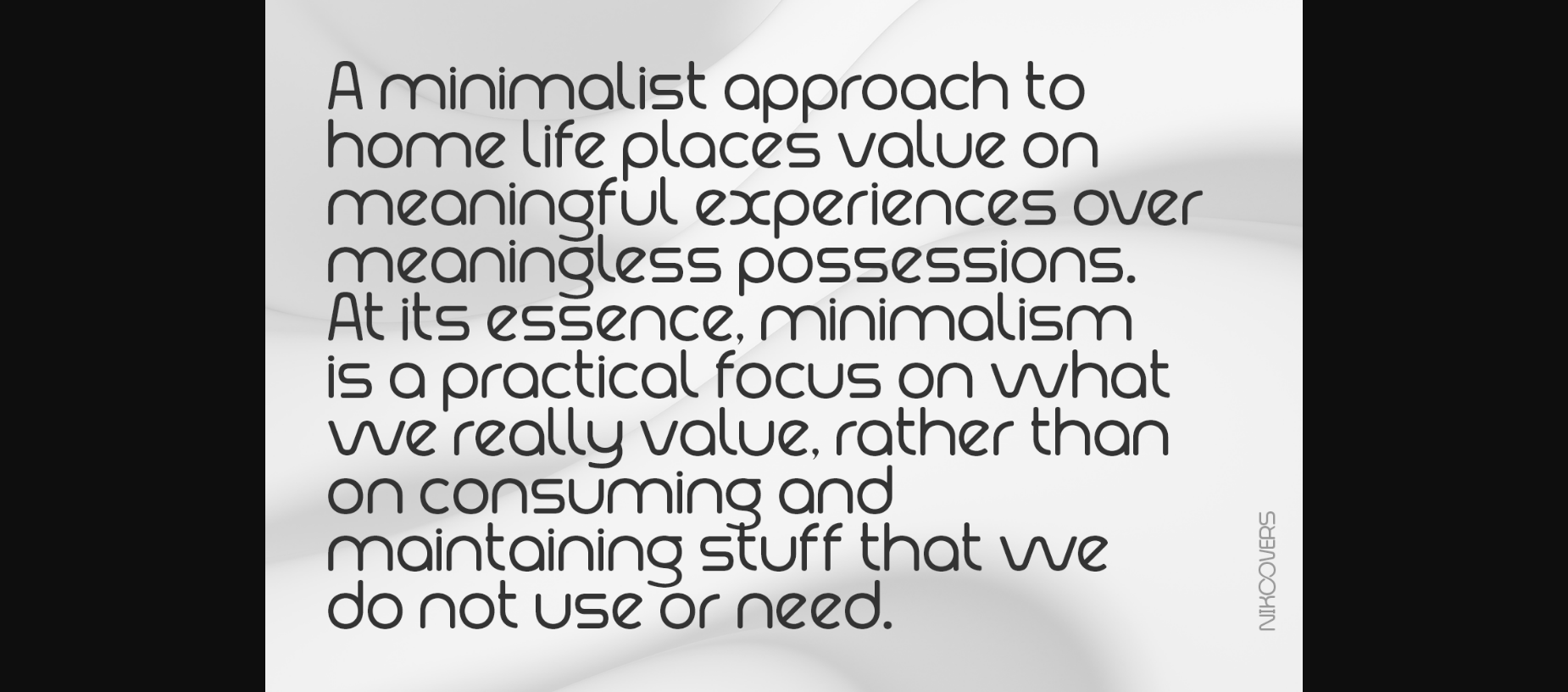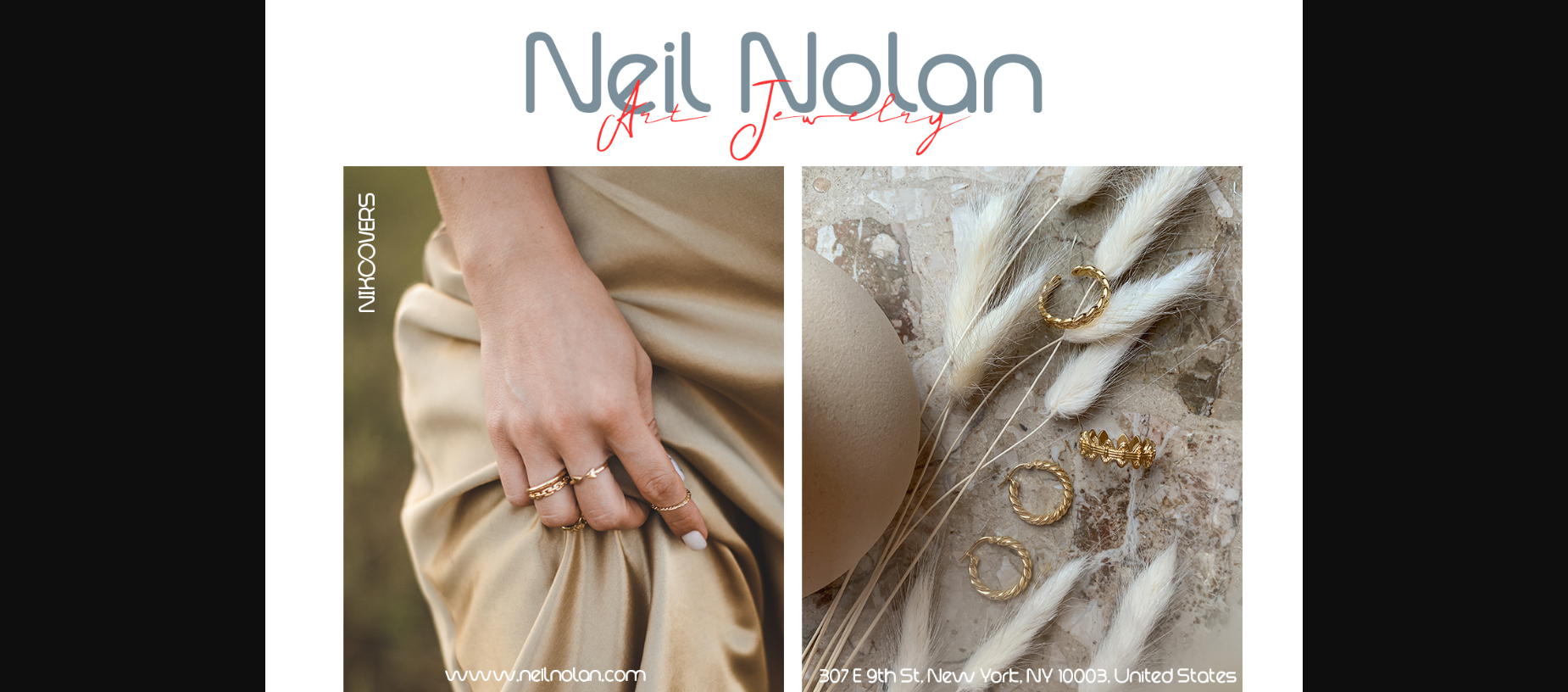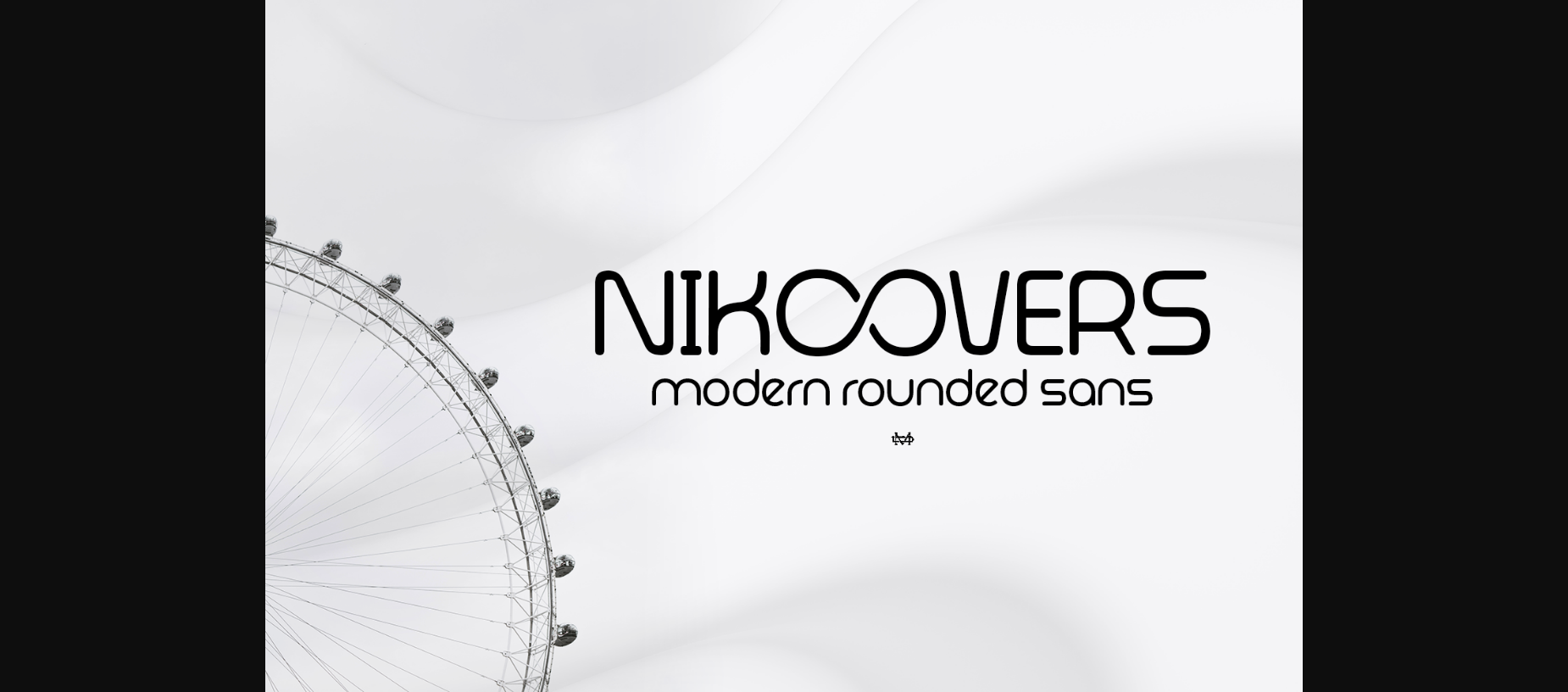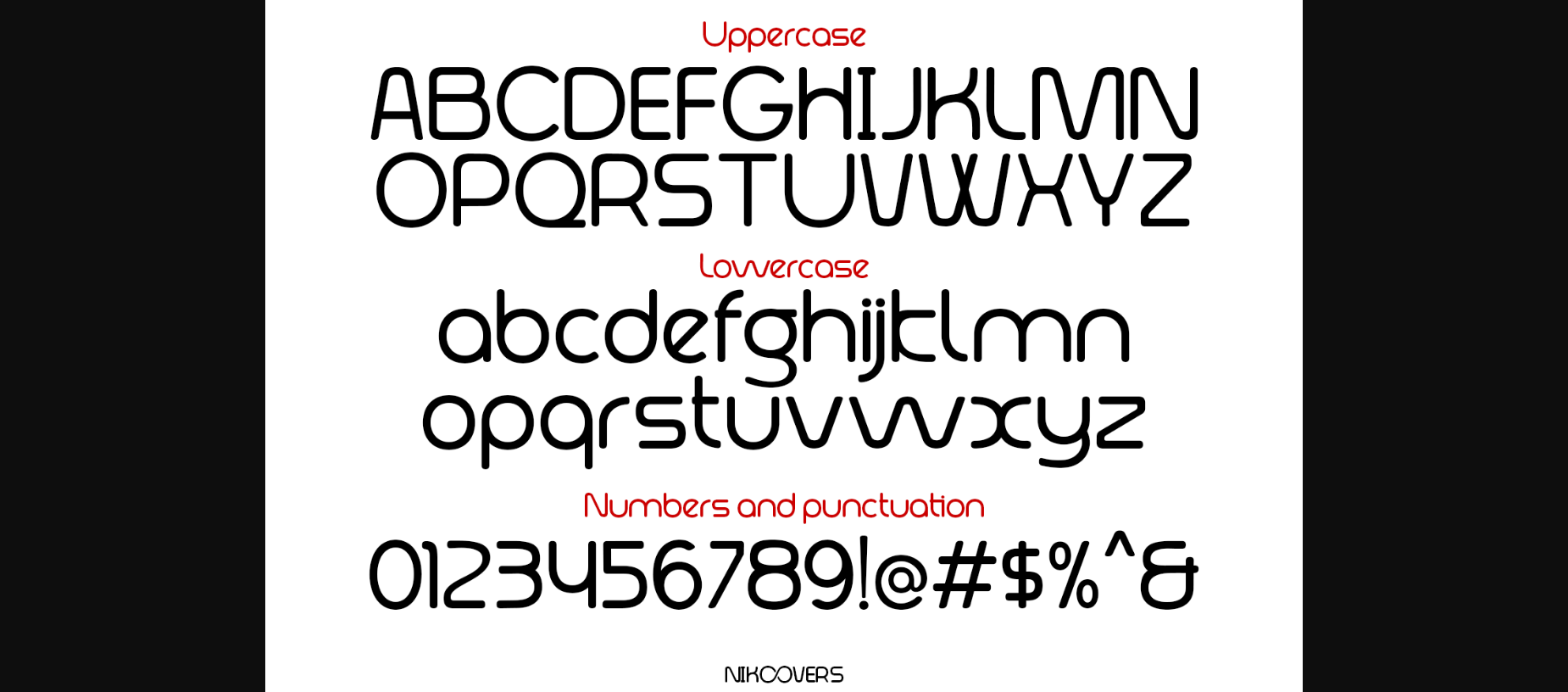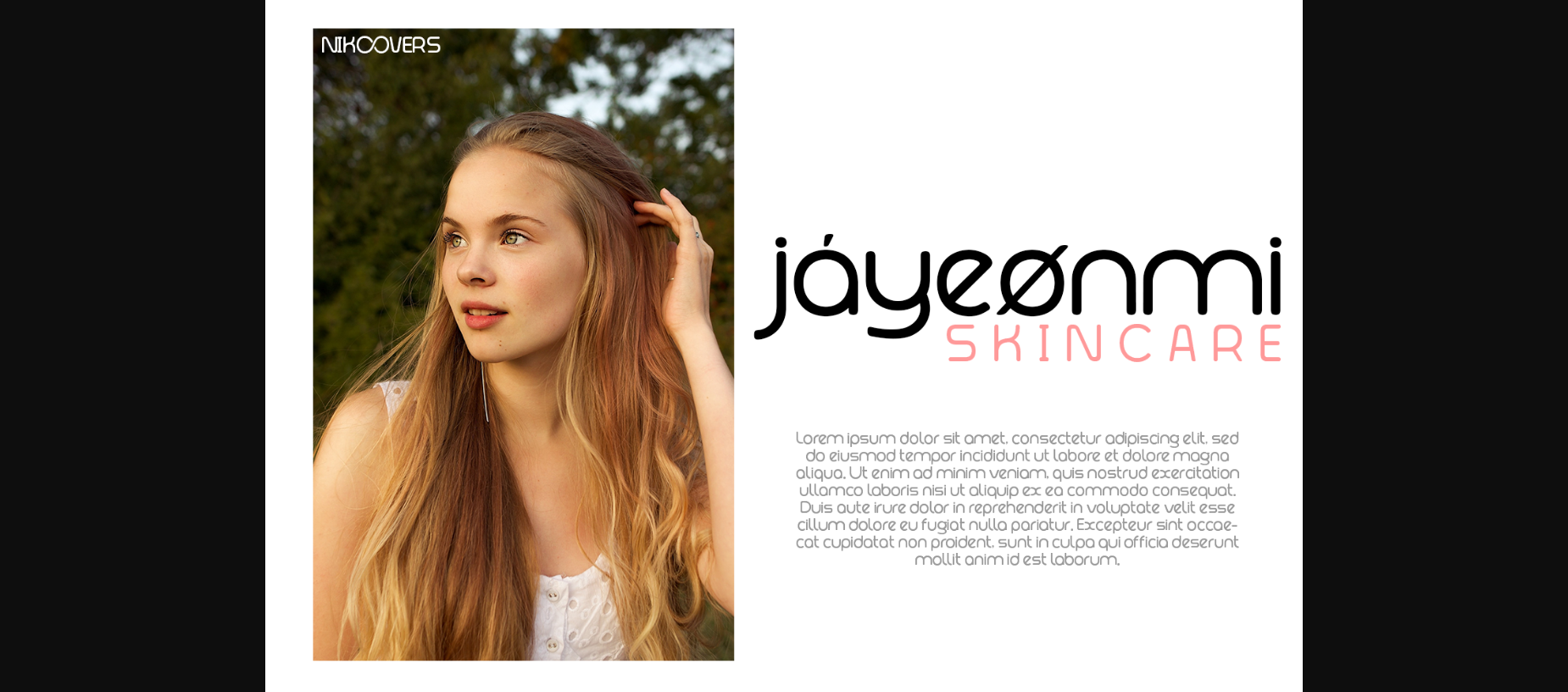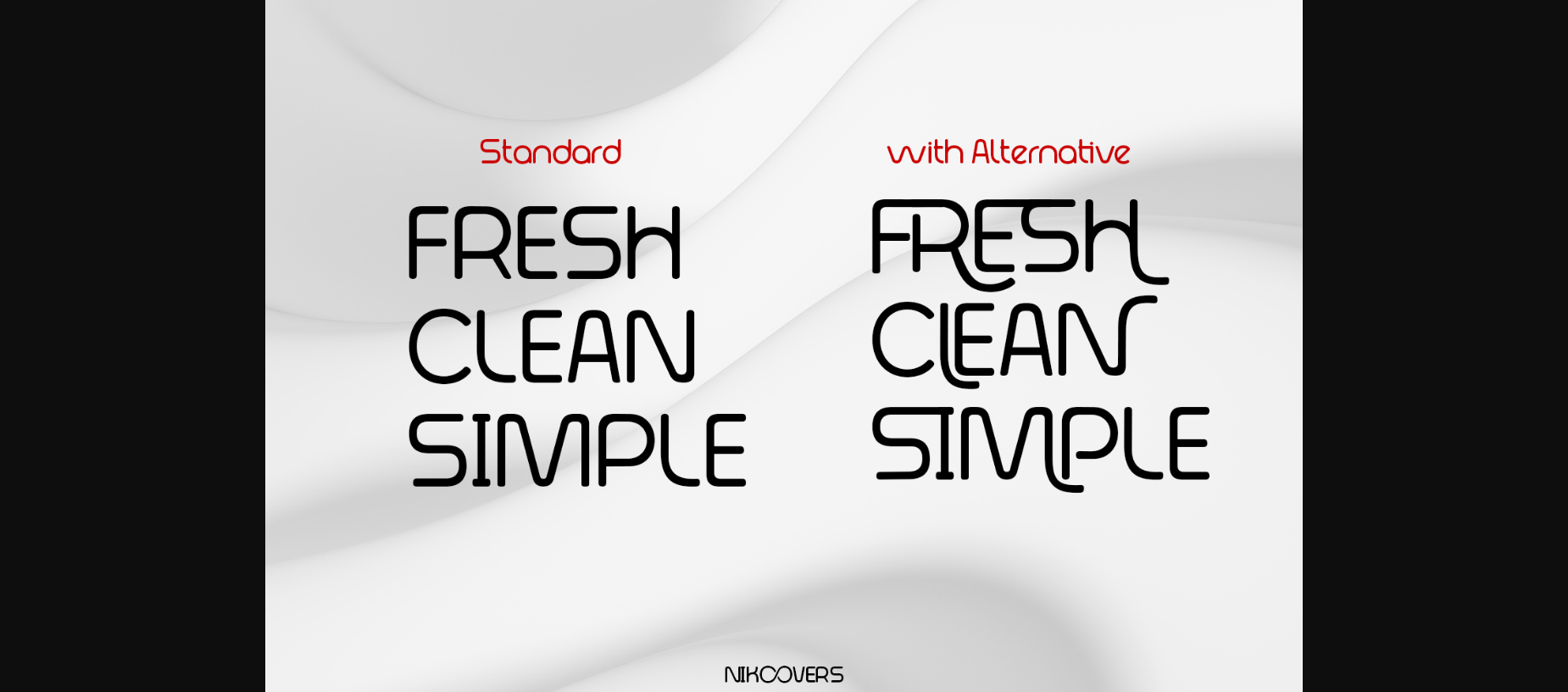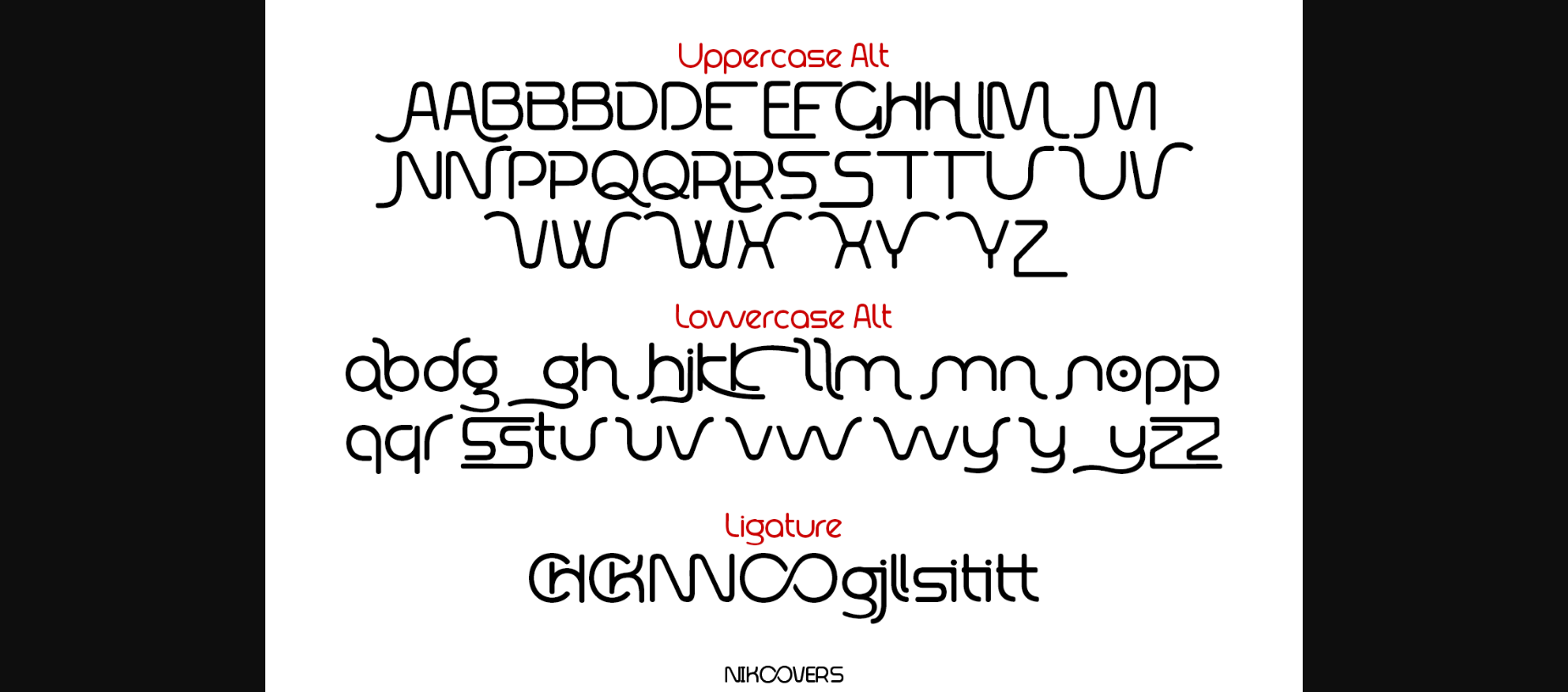
Nikoovers Font
About Nikoovers Font
Nikoovers Font is a modern rounded sans that exudes simplicity and versatility. Its clean and geometric letterforms make it ideal for various design applications, from corporate branding to editorial layouts.
– Uppercase & Lowercase
– Number & Symbol
– International Glyphs
– Multilingual support
– Alternative
– ligature